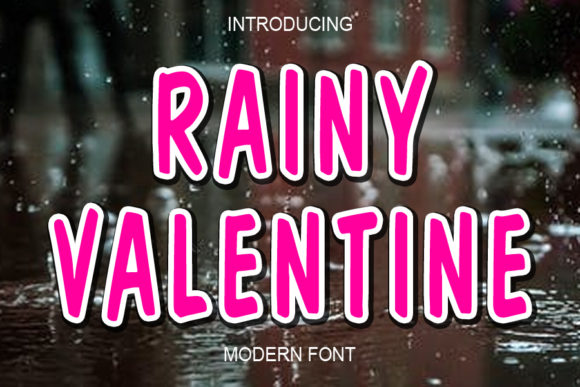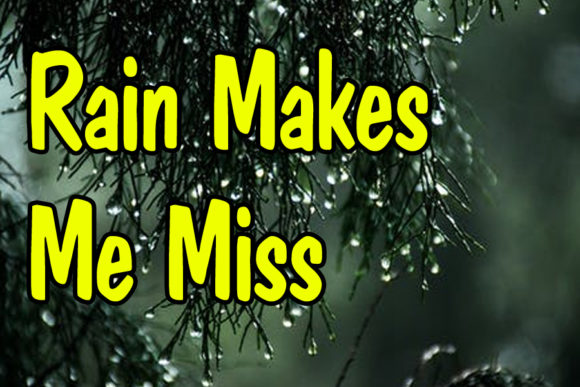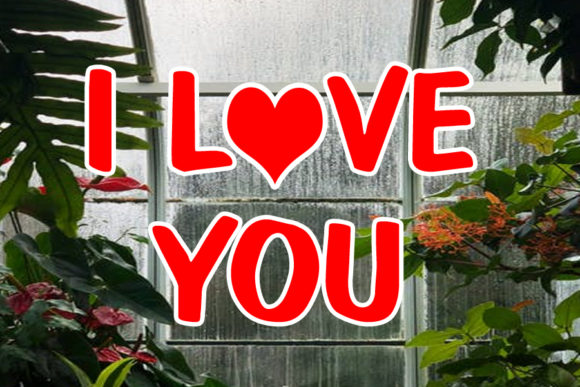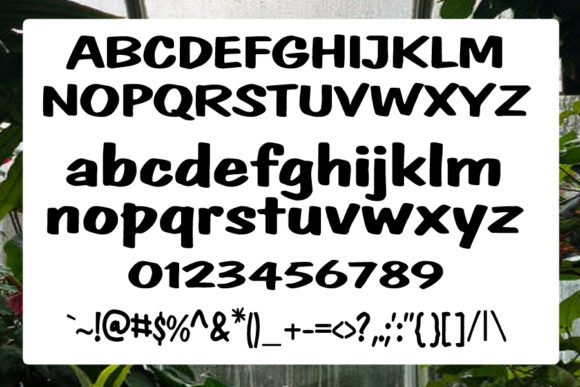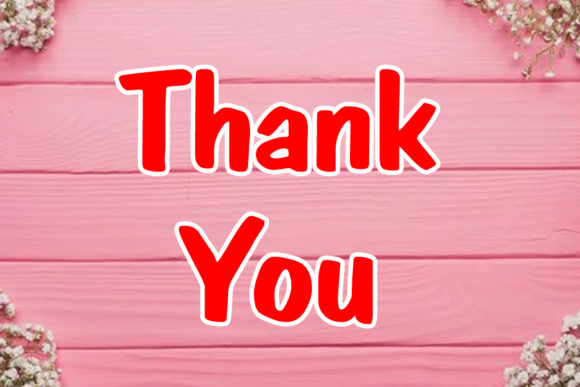
Rainy Valentine Font
Rainy Valentine is a thick lettered, simple and daring display font. No matter the topic, this font will be an incredibly asset to your fonts’ library, as it has the potential to elevate any creation.